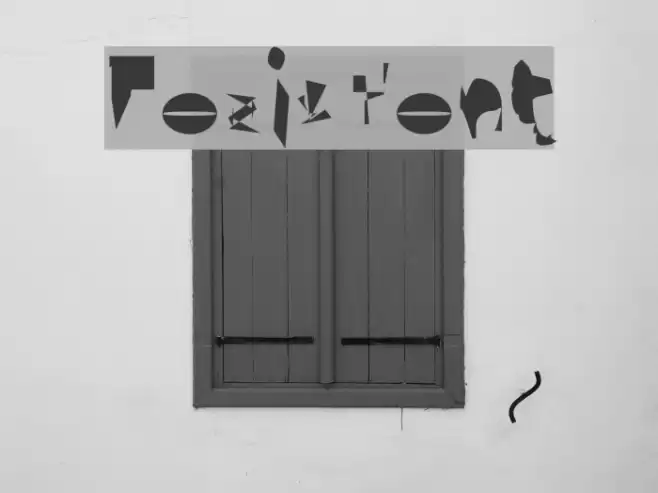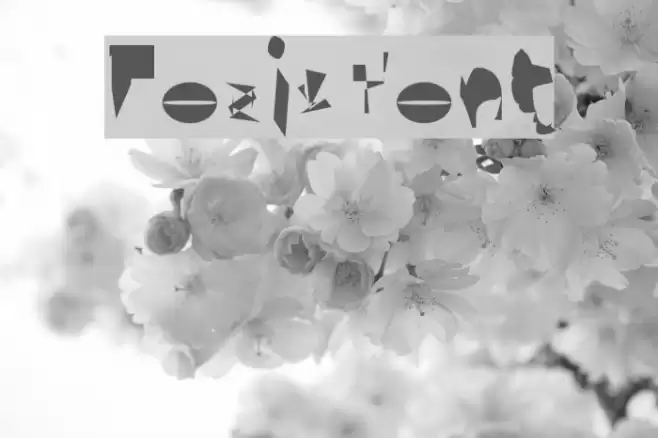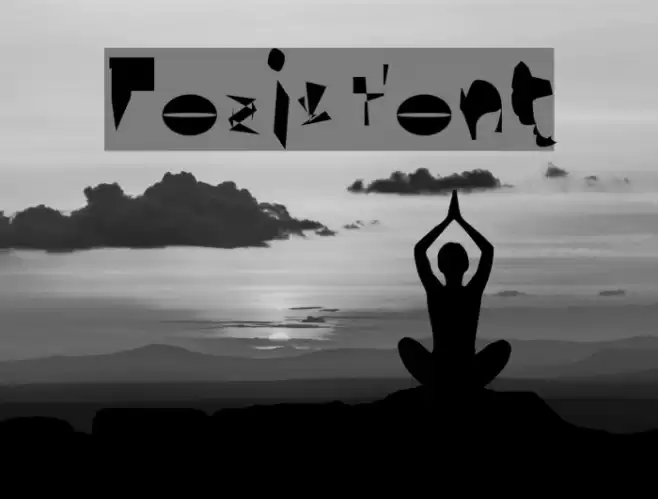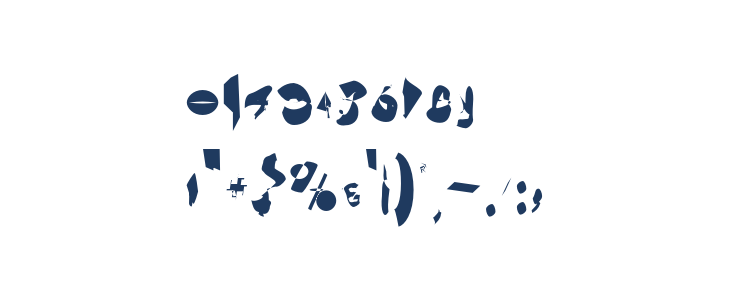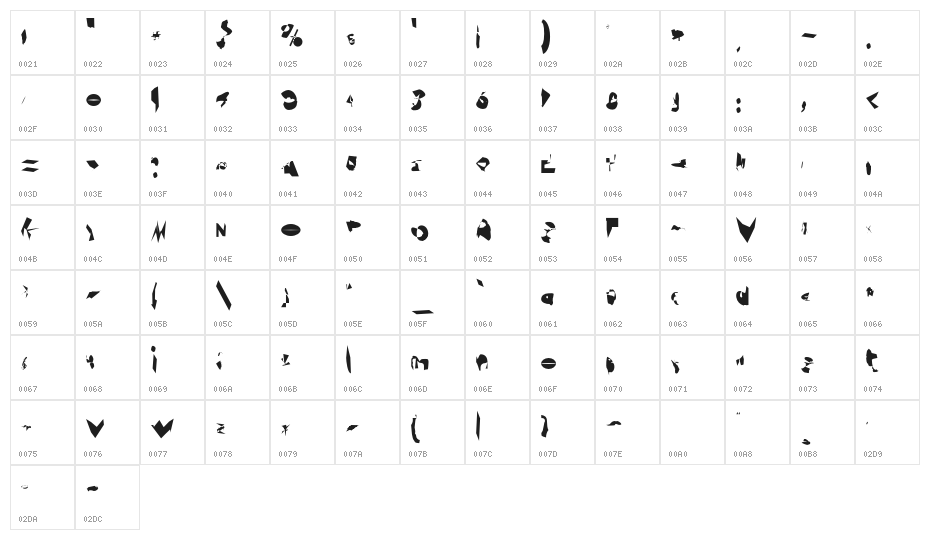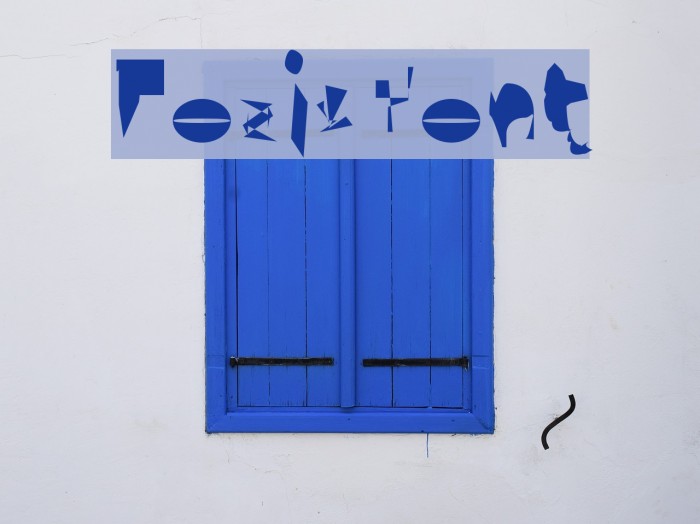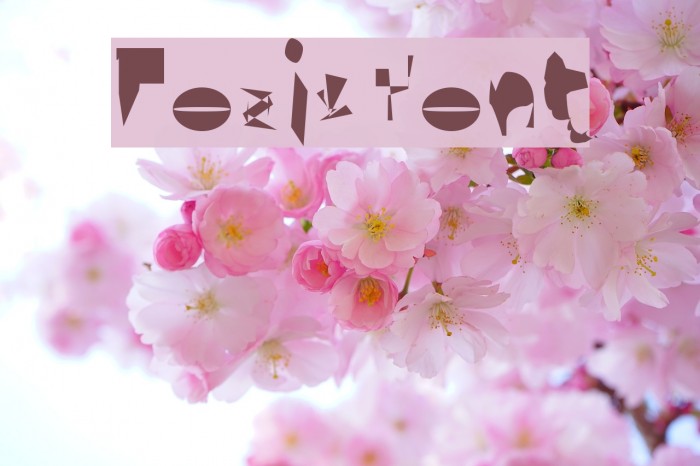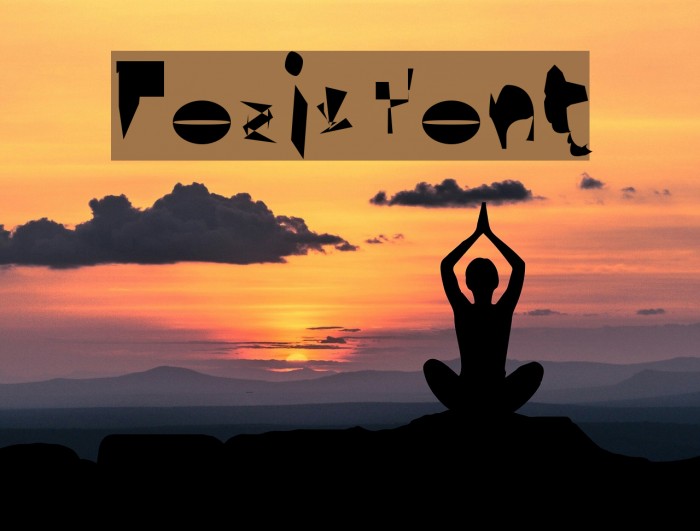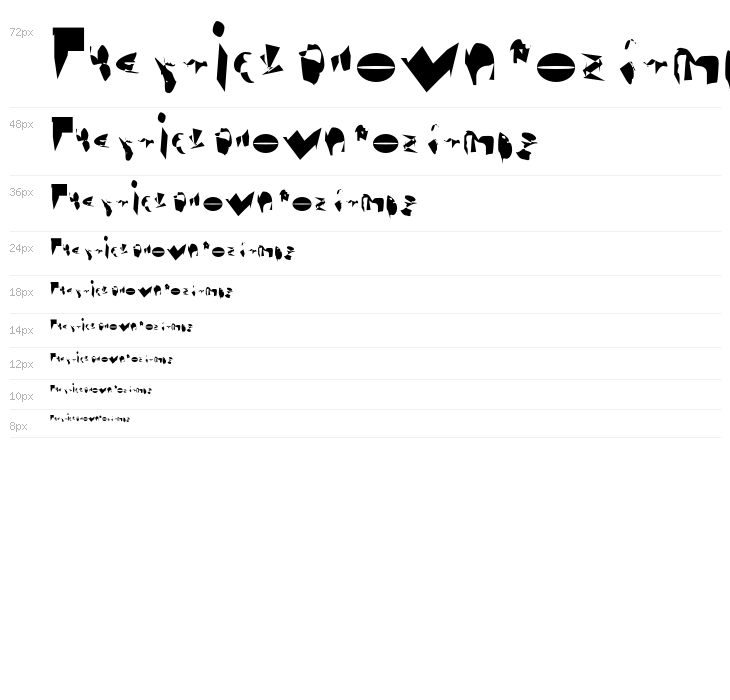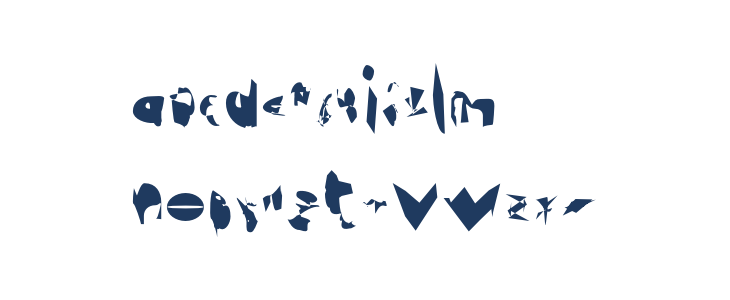
Toxik Font
Toxik Description
This font presents a highly abstract and fragmented style, characterized by sharp angles and irregular shapes. The letters are distorted, giving them a chaotic and edgy appearance. The design is bold and striking, with a high level of visual interest due to its unconventional forms. Each character appears to be broken or shattered, creating a sense of movement and unpredictability. This font is not suitable for body text due to its complexity but can be highly effective in artistic or avant-garde projects where a strong visual impact is desired.
An abstract, fragmented font with sharp angles and irregular shapes from Uncategorized fonts.
- Proposed Projects: Ideal for album covers, poster designs, or any project requiring a bold, artistic statement.
- Overall Style: Modern, Avant-garde
- Use Case: Logos, Headlines, Artistic projects